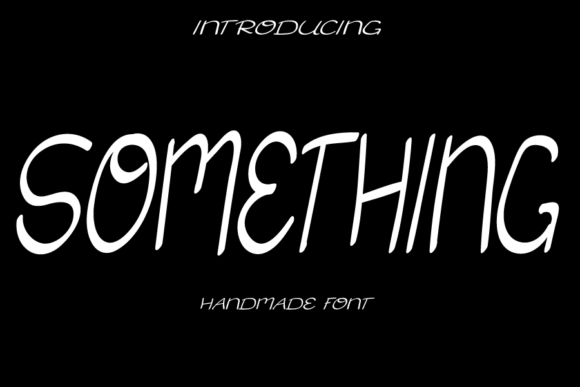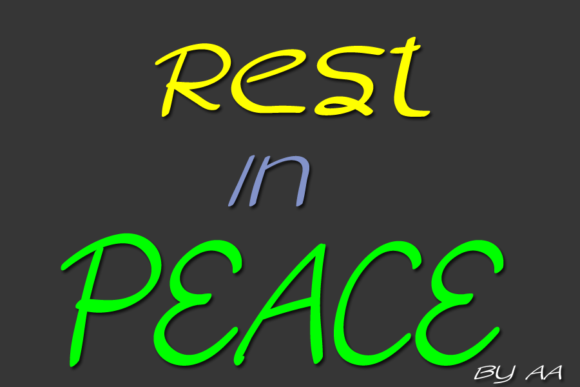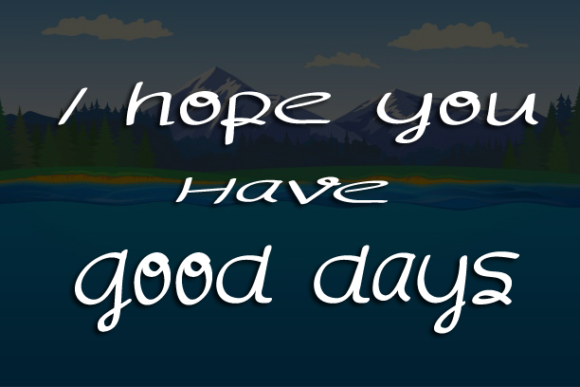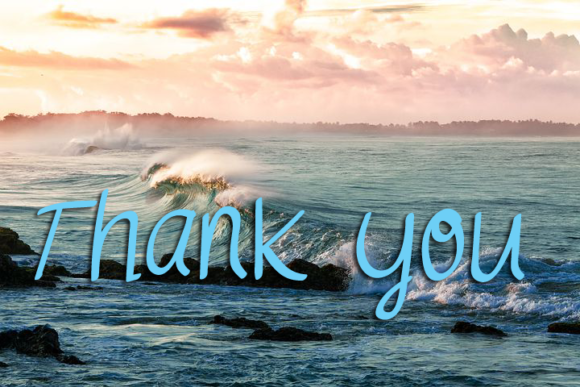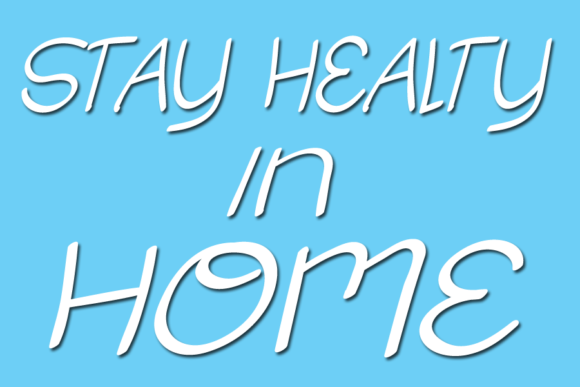
Something Font
About Something Font
SomethingĀ is a cute and simple lettered handwritten font that can be used for all chalkboard quotes or teaching material! Its authentic look will add a personal and realistic feel to your designs.